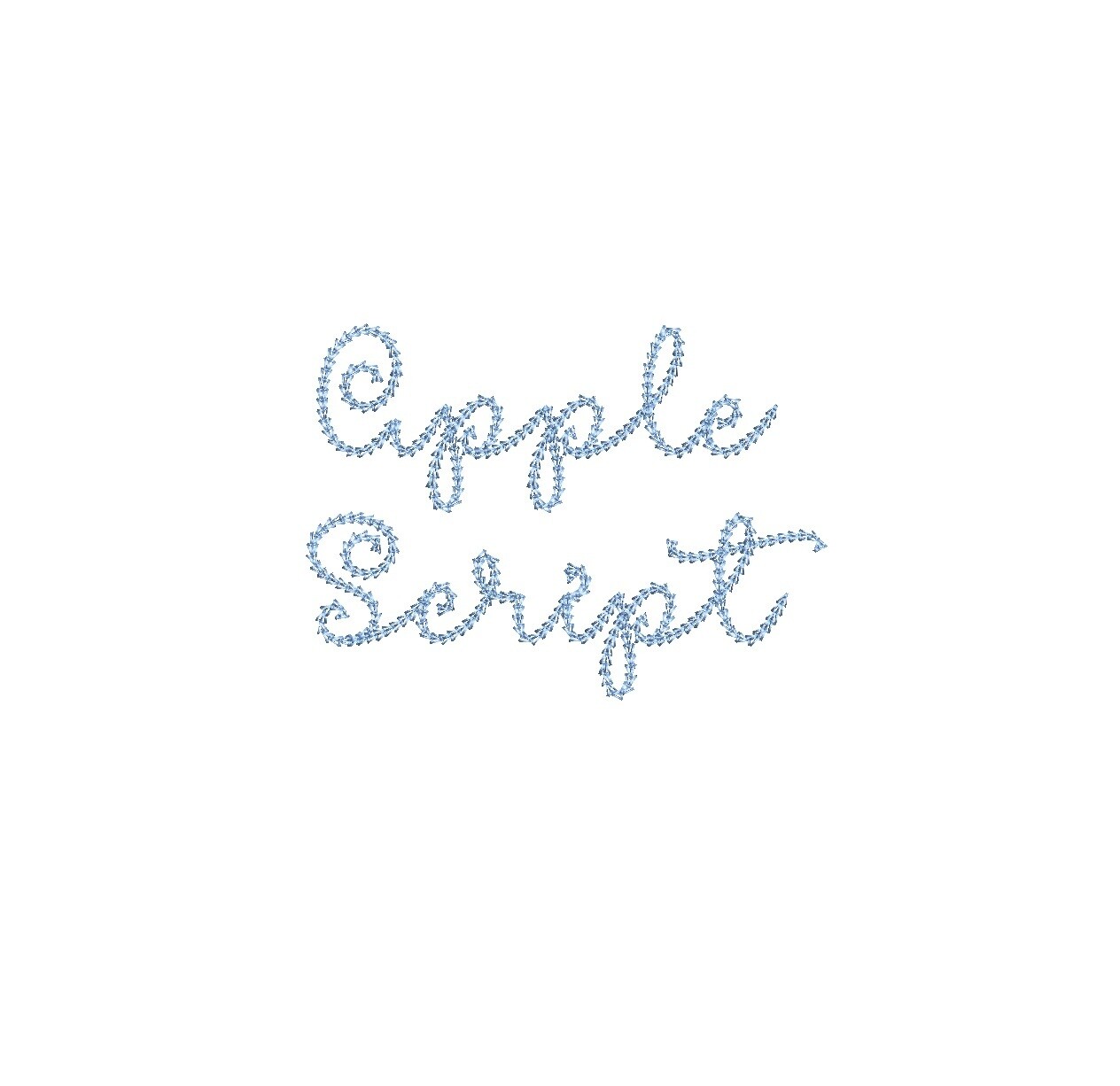
Unleash creativity with Apple Script Chain Stitch ESA font. Perfectly compatible with Wilcom Studio e4.5.6 and Hatch 3 versions and beyond, it elevates embroidery to new heights. Crafted with precision, the font adds a unique charm to your designs. Immerse projects in intricate chain stitch artistry, infusing depth and allure. Seamlessly integrate for exceptional results that captivate. Embrace Apple Script's versatility to transform fabric into a canvas of innovation. Elevate your embroidery with this font's seamless blend of technology and artistry. Experience the power of Apple Script Chain Stitch ESA font and redefine stitching excellence.